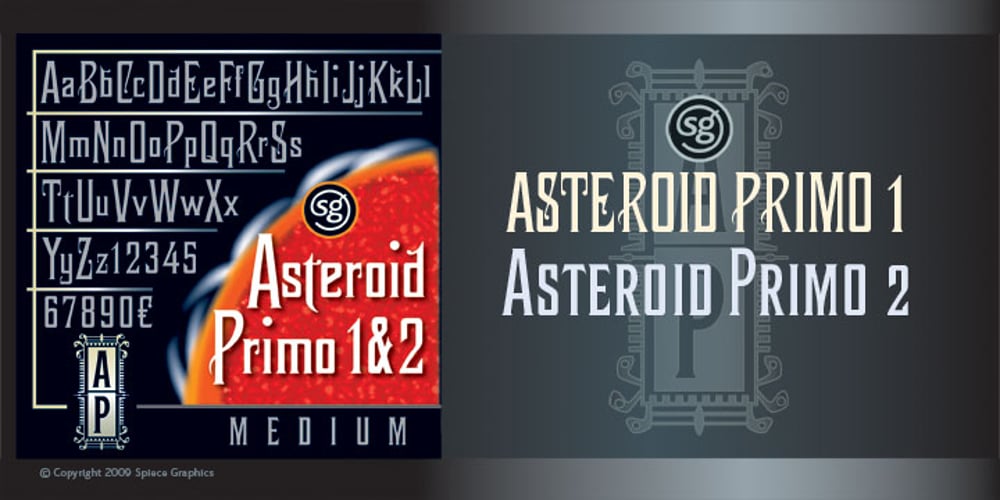
Asteroid Primo SG
Asteroid Primo SG font
Asteroid Primo SG Font Family was designed by published by Spiece Graphics. Asteroid Primo SG contains 2 styles and family package options. This 19th century antique typeface comes in two different flavors. Tall, squarish ornate caps center-aligned on a flowery lowercase body comprise the exquisite and memorable Asteroid Primo One classic design. As perfect today for initials and short headlines as it was when it was created. Asteroid Primo Two takes a slightly different turn. This design is simply a normal baseline font with ornament-free cap and small cap characters. Great for cramped all-cap situations. In addition, characters from both One and Two can be substituted to produce captivating headlines or unique logotypes. Asteroid Primo One & Two is also available in the OpenType Std format. Some new alternate characters have been added to this OpenType version. Advanced features currently work in Adobe Creative Suite InDesign, Creative Suite Illustrator, and Quark XPress 8. Check for OpenType advanced feature support in other applications as it gradually becomes available with upgrades.